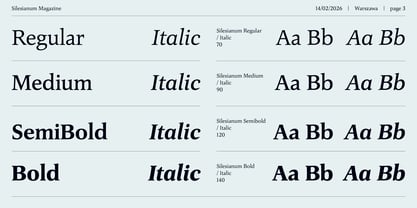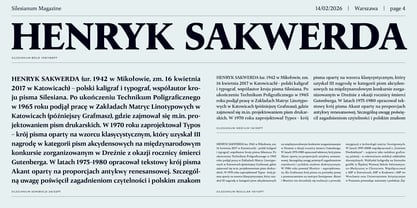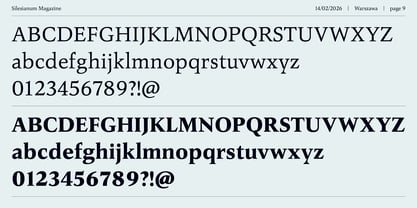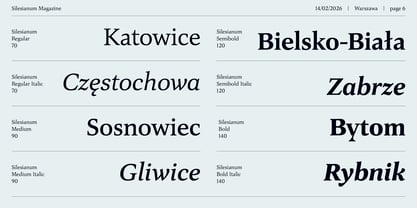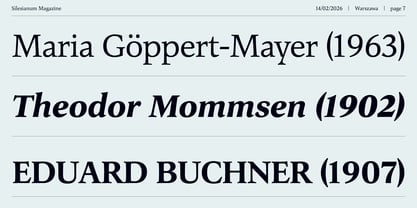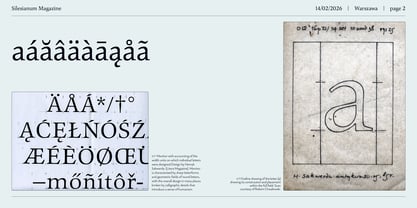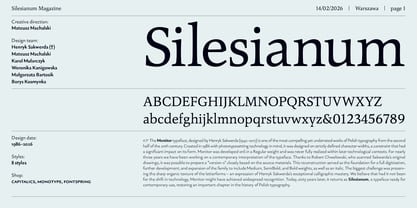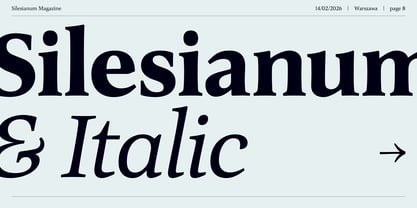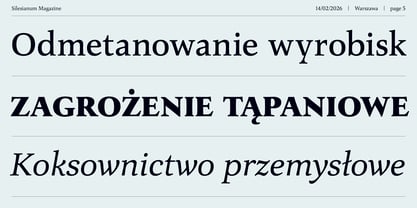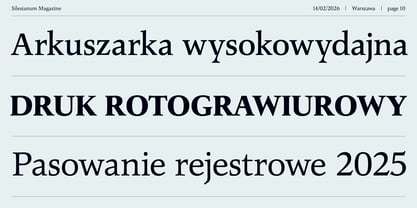
Silesianum
by Machalski
The Silesianum Font Family was designed by Mateusz Machalski and published by Machalski. Silesianum contains 8 styles and family package options. More about this family
The Monitor typeface, designed by Henryk Sakwerda (1942–2017) is one of the most compelling yet underrated works of Polish typography from the second half of the 20th century. Created in 1986 with phototypesetting technology in mind, it was designed on strictly defined character widths, a constraint that had a significant impact on its form. Monitor was developed onli in a Regular weight and was never fully realized within later technological contexts. For nearly three years, Mateusz Machalski together with a team consisting of Weronika Kanigowska, Karol Mularczyk, Małgorzata Bartosik, and Borys Kosmynka, have been working on a contemporary interpretation of the typeface. Thanks to Robert Chwałowski, who scanned Sakwerda’s original drawings, it was possible to prepare a “version 0” closely based on the source materials. This reconstruction served as the foundation for a full digitization, further development, and expansion of the family to include Medium, SemiBold, and Bold weights, as well as an italic. The biggest challenge was preserving the sharp organic texture of the letterforms – an expression of Henryk Sakwerda’s exceptional calligraphic mastery. We believe that had it not been for the shift in technology, Monitor might have achieved widespread recognition. Today, sixty years later, it returns as Silesianum, a typeface ready for contemporary use, restoring an important chapter in the history of Polish typography. Design team: Mateusz Machalski, Henryk Sakwerda, Karol Mularczyk, Weronika Kanigowska, Małgorzata Bartosik & Borys Kosmynka.
Dr hab. Mateusz Machalski, Associate Professor (b. 1989) – Vice-Rector for Artistic Affairs at the Academy of Fine Arts in Warsaw. Designer, typographer, lecturer and researcher specializing in visual communication and graphic design. He graduated with Rector’s Honours from the Faculty of Graphic Arts at the Academy of Fine Arts in Warsaw (2009–2014), where he currently teaches at the Multimedia Artistic Creation Studio. Named Designer of the Year 2019 at the Polish Graphic Awards, he has been repeatedly awarded in national and international competitions, including KTR, Ascender 2018 – Type Directors Club New York, MUSTHAVE, The DieLine, Red Dot Design, The Best of Design 2018 – Klub Twórców Reklamy, and Animator 2020 – DESIGN ALIVE. He is a five-time recipient of the Polish Ministry of Culture’s scholarship, a laureate of the Ministry of Science and Higher Education’s scholarship for outstanding young researchers, and of the “Young Poland” programme by the National Centre for Culture. He was awarded the Centennial of Regained Independence Medal by the President of Poland. He is a curator and member of the programme board of the International Poster Biennale in Warsaw, and Art Director of the magazines newonce paper and Warsawholic. He has created more than 80 typeface families – including numerous corporate and multi-script designs – and over 200 visual identities for companies, institutions and cultural events. His fonts are distributed through platforms such as Google Fonts, Adobe and Monotype, and his clients include leading Polish and global brands. He has led teams digitizing key works of Polish typography, including “Półtawski Nowy”, “BRYGADA 1918” (launched at the Presidential Palace), and carried out the long-term “Bona Nova” project together with Andrzej Heidrich – the designer of Polish banknotes. He co-created Typoteka – the first Polish index of typography (1474–2024). Co-founder of the first Polish type foundry – Capitalics. He is also the author of numerous texts, articles and exhibitions on graphic design and visual culture, as well as the “Creative Typography” course published by Design Practice. He conducts research projects, workshops and lectures at universities and conferences in Poland and abroad.